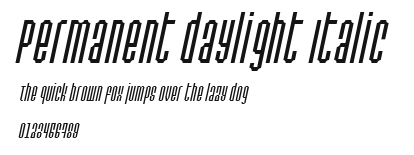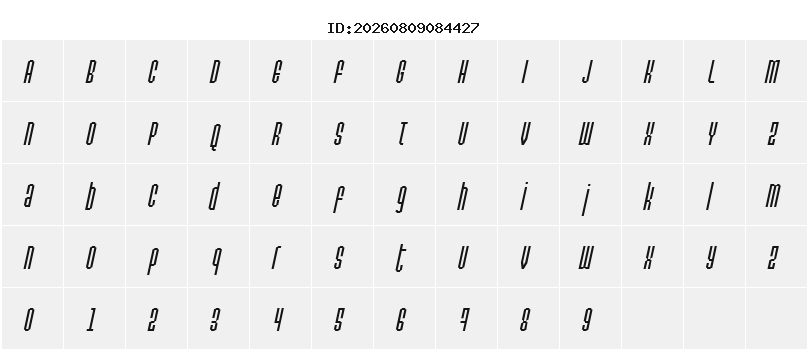
• Font Name: Permanent daylight Italic
• Font ID: Permanent daylight
• Full Font Name: Permanent daylight Italic
• PostScript Name: PermanentdaylightItalic
About Permanent daylight Italic.ttf
Permanent daylight Italic.ttf is a modern, elegant sans-serif font designed for ultimate readability and visual harmony. Perfect for branding, headlines, web design, and print materials.